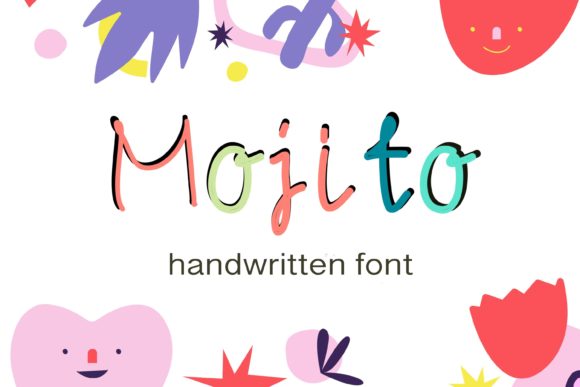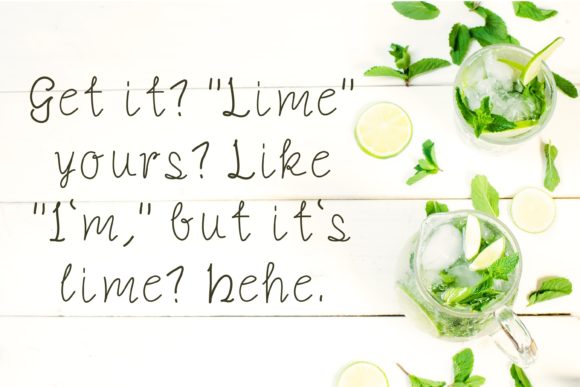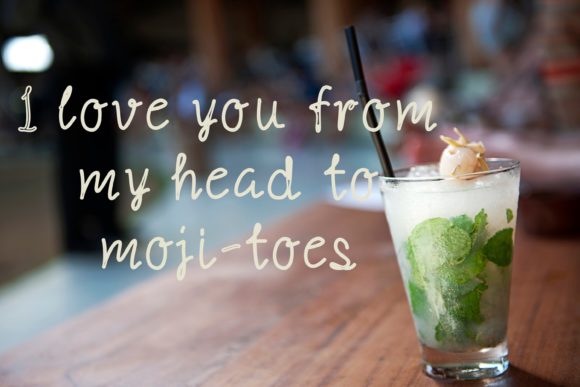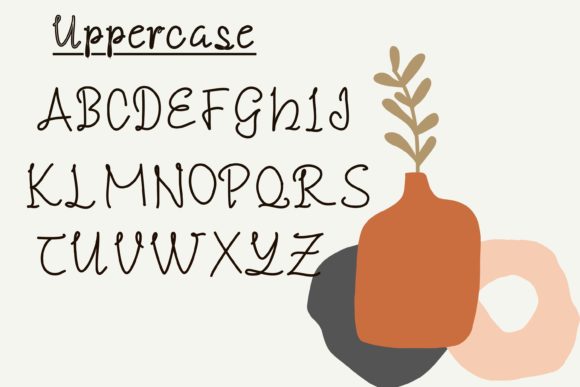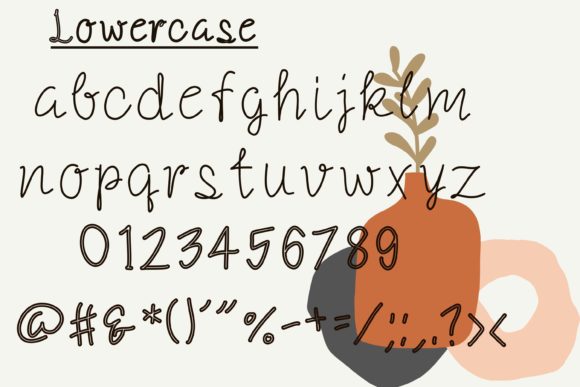
Mojito Font
About Mojito Font
Mojito is a simple handwritten font that can be used for all chalkboard quotes or teaching material. Its authentic look and feel will add a personal and realistic touch to any of your lovely designs!